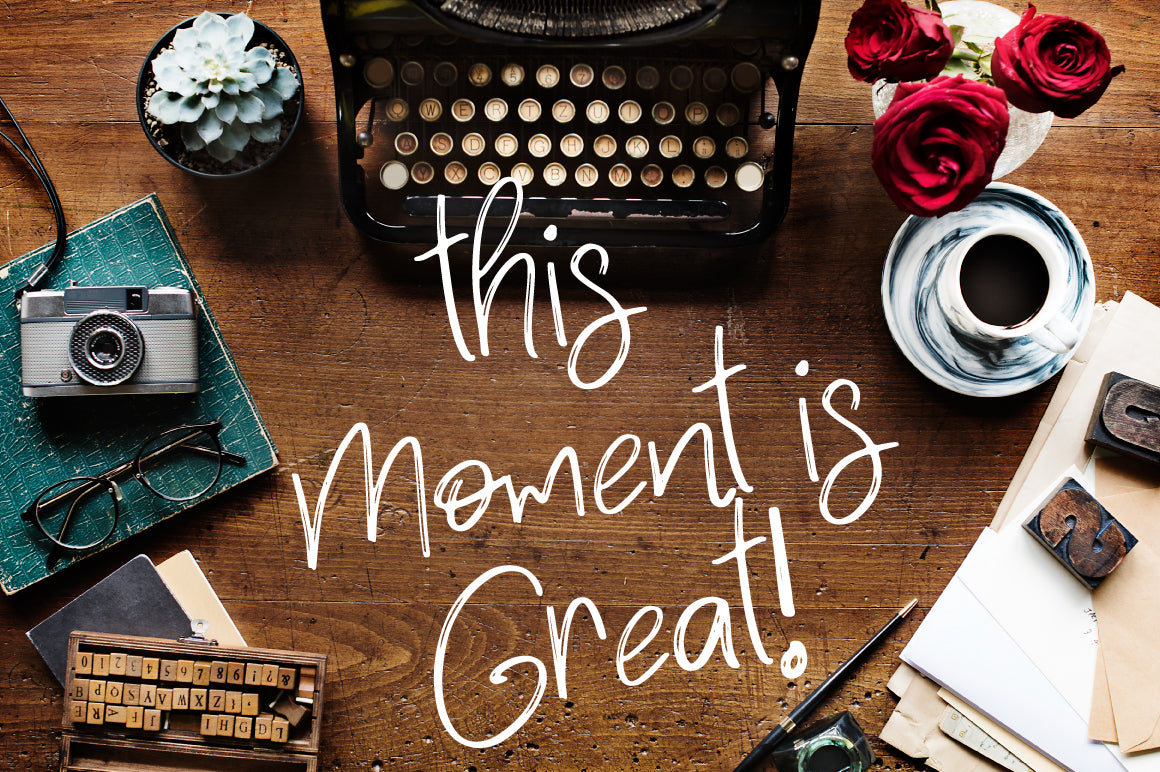
Free Densfort Handwritten Font
Featuring a free densfort handwritten font. Pixelify has created this amazing and beautiful free font. Easily amaze your audience with this beautiful font and make your graphic designs pop up from the crowd.